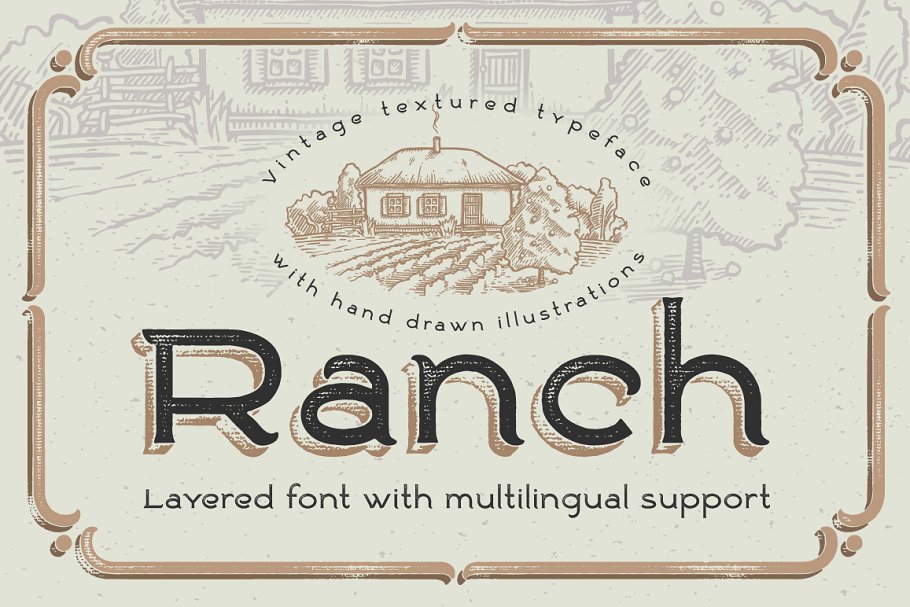
Introducing Ranch vintage font & illustrations, the ultimate choice for all your creative endeavors! Crafted with meticulous attention to detail by the talented Gleb Guralnyk, this vintage typeface is guaranteed to elevate your design projects to new heights.
With its layered textured effect, Ranch offers a truly unique and captivating aesthetic. The four font variations allow for easy recoloring and combining, giving you endless possibilities to create eye-catching designs. But that's not all - as a bonus, you'll also receive vector hand-drawn illustrations of a charming countryside house, windmill, and trees.
What sets Ranch apart from other fonts is its exceptional versatility. Whether you're designing posters, branding materials, invitations, or even social media graphics, this font is a game-changer. The 2nd and 3rd screenshots showcase stunning posters created using Ranch, and you'll have access to them in vector format.
We understand the importance of readability, and that's why Ranch is the best font for reading text. Its carefully crafted letterforms ensure optimal legibility, making it a perfect choice for any project that requires clear communication. Plus, Ranch supports multiple languages, so you can reach a global audience without any limitations.
Don't miss out on this opportunity to enhance your creative toolkit. Ranch vintage font & illustrations is a must-have for designers, artists, and anyone looking to make a lasting impression. Let your imagination run wild and bring your ideas to life with this exceptional font.
Upgrade your design game with Ranch vintage font & illustrations. Get ready to embark on a journey of creativity and inspiration. Your projects deserve the very best, and Ranch is here to deliver.